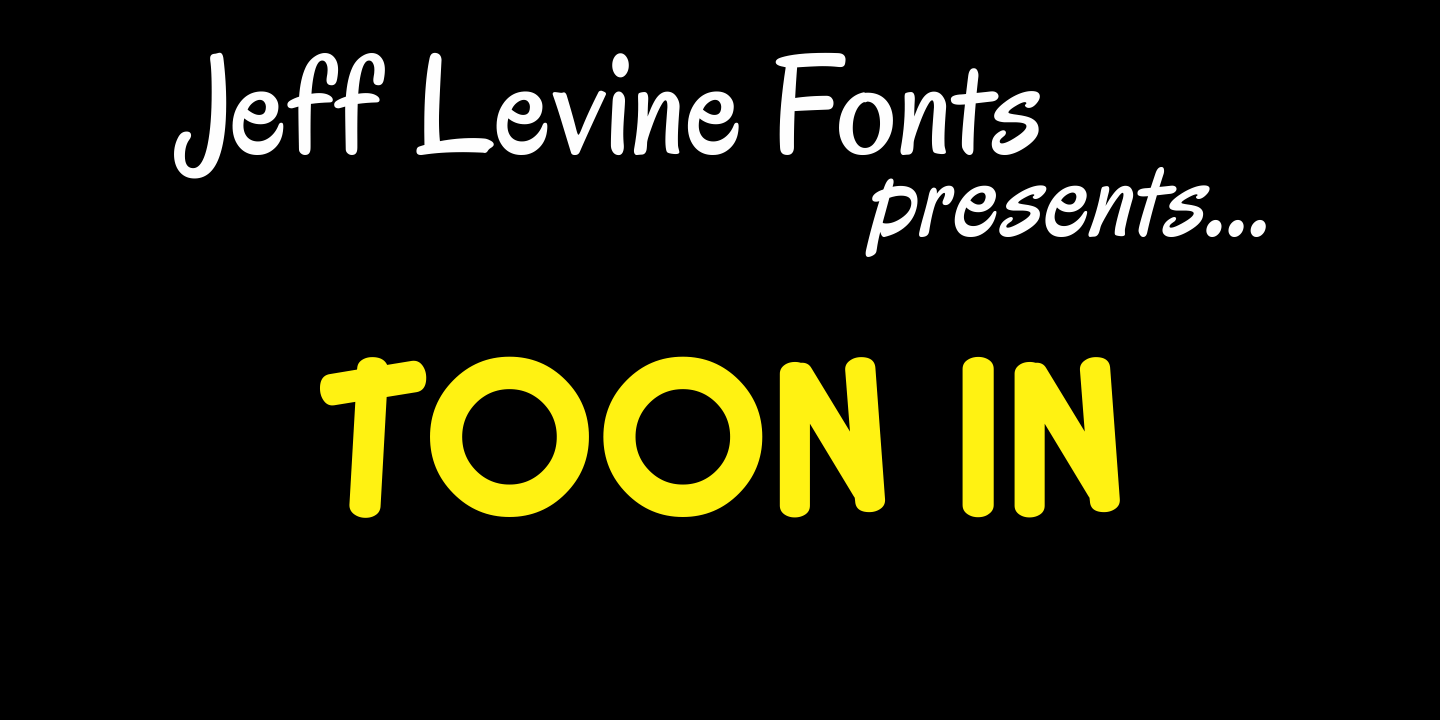
Toon In
Lettering in the credits of classic animated cartoons was the inspiration for Toon In JNL, a fun and lighthearted typeface. Use this font anywhere a relaxed, informal or playful message is displayed.
Toon In JNL Regular by Jeff Levine Fonts